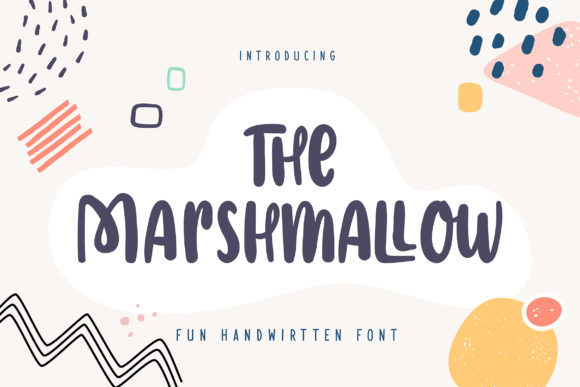
Step into a world of delightful charm with The Marshmallow Font, an irresistibly sweet and playful display font that will set your designs ablaze with joy and individuality. This enchanting font is a masterpiece crafted by Vunira, renowned for creating typographic gems that capture hearts and imaginations.
Indulge in the whimsical essence of The Marshmallow Font, a captivating handwritten typeface that dances across your designs with a carefree and enchanting rhythm. Its whimsical curves and delightful loops will infuse your projects with a touch of magic, evoking a sense of childlike wonder and lightheartedness.
Unleash your creativity and watch as The Marshmallow Font transforms your digital dreams into captivating realities. It's the perfect font for adding a personal touch to your designs, whether you're creating eye-catching logos, heartwarming invitations, or playful social media posts. Its versatile nature makes it an ideal companion for a wide range of projects, from quirky illustrations to heartfelt greeting cards.
Make a bold statement and let your designs shine with The Marshmallow Font. Its playful personality will add a touch of whimsy and delight to any project, leaving a lasting impression on your audience. Let your imagination soar and create designs that resonate with warmth, charm, and a dash of irresistible charm.